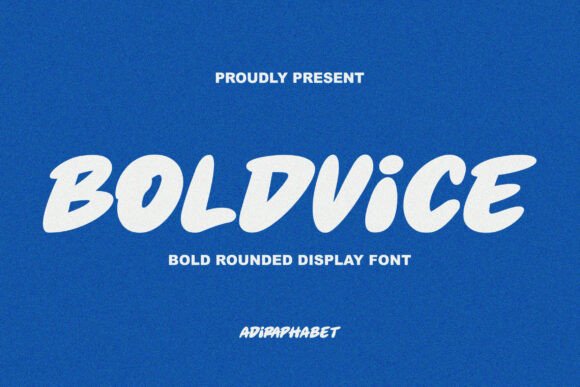
I still remember the frustration of working on a project, hours spent crafting the perfect design, only to be held back by one thing: the font. It was a client project, and they wanted something that exuded confidence and energy, but I just couldn’t find the right fit. I scrolled through font after font, but nothing seemed to strike the perfect balance between strength and approachability. That was until I stumbled upon **BOLDVICE**, a modern bold display font that changed the game.
First Impressions: A Bold and Beautiful Font
BOLDVICE is a stunning typeface crafted to bring confidence, clarity, and energy into your designs. Its thick, rounded shapes and smooth flow make it a perfect blend of strength and friendliness. Inspired by bold lettering and contemporary branding styles, BOLDVICE is ideal for eye-catching headlines and clean visual identities.
- ✨ **Confidence and Energy**: BOLDVICE exudes a sense of confidence and energy, making it perfect for projects that need to stand out.
- ✅ **Clean and Modern Design**: The font’s clean and modern design makes it versatile for a wide range of projects, from branding to advertising.
- 💡 **OpenType Features**: BOLDVICE comes with a range of OpenType features, including stylistic alternates and glyphs, giving you plenty of creative options.
While BOLDVICE is an excellent font, there are a few things to keep in mind:
- 🤔 **Limited Use in Body Text**: Due to its bold nature, BOLDVICE may not be the best choice for body text, especially for longer paragraphs.
- ⚠️ **Kerning Issues**: As with any font, there may be some kerning issues, especially when using certain character combinations.
The Story Behind BOLDVICE
BOLDVICE was designed with the goal of creating a font that embodies confidence, clarity, and energy. Inspired by modern branding styles and bold lettering, the designer aimed to craft a typeface that strikes a perfect balance between strength and approachability.
| Font Name | Boldvice Font |
| Author | Adiraphabet |
Q: What is BOLDVICE font?
A: BOLDVICE is a modern bold display font designed to bring confidence, clarity, and energy into your designs.
Q: What type of projects is BOLDVICE suitable for?
A: BOLDVICE is ideal for projects that need to stand out, such as eye-catching headlines, clean visual identities, and bold branding.
Q: Can I use BOLDVICE for body text?
A: While BOLDVICE can be used for body text, it’s primarily designed for headlines and titles due to its bold nature.
Q: Does BOLDVICE come with OpenType features?
A: Yes, BOLDVICE comes with a range of OpenType features, including stylistic alternates and glyphs, giving you plenty of creative options.